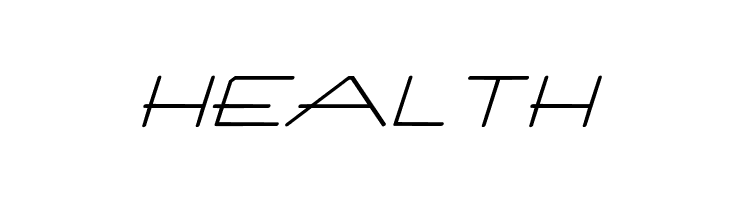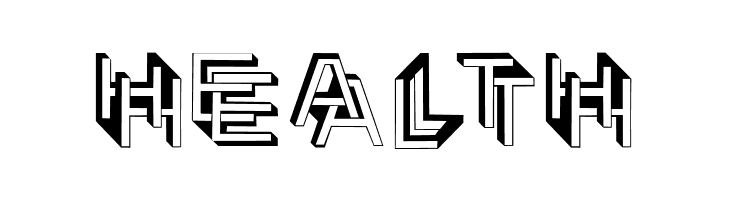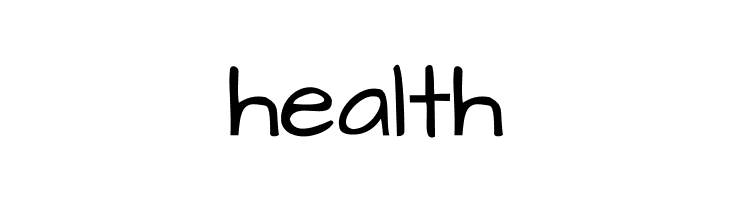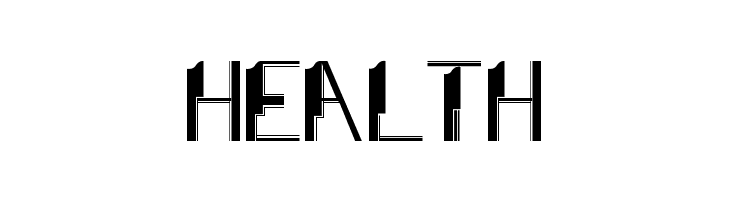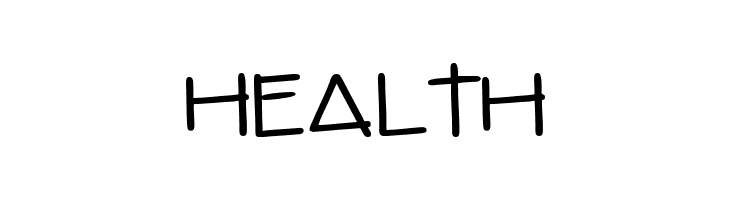
A casual, handwritten font with a playful and approachable style.
A playful, hand-drawn style font with bold, rounded characters.
A hand-drawn, architectural-style font with consistent stroke width and artistic flair.
A bold, geometric font with a modern, architectural style.
A playful, handwritten font with a casual and energetic style.
A geometric, architectural font with a modern, technical style.